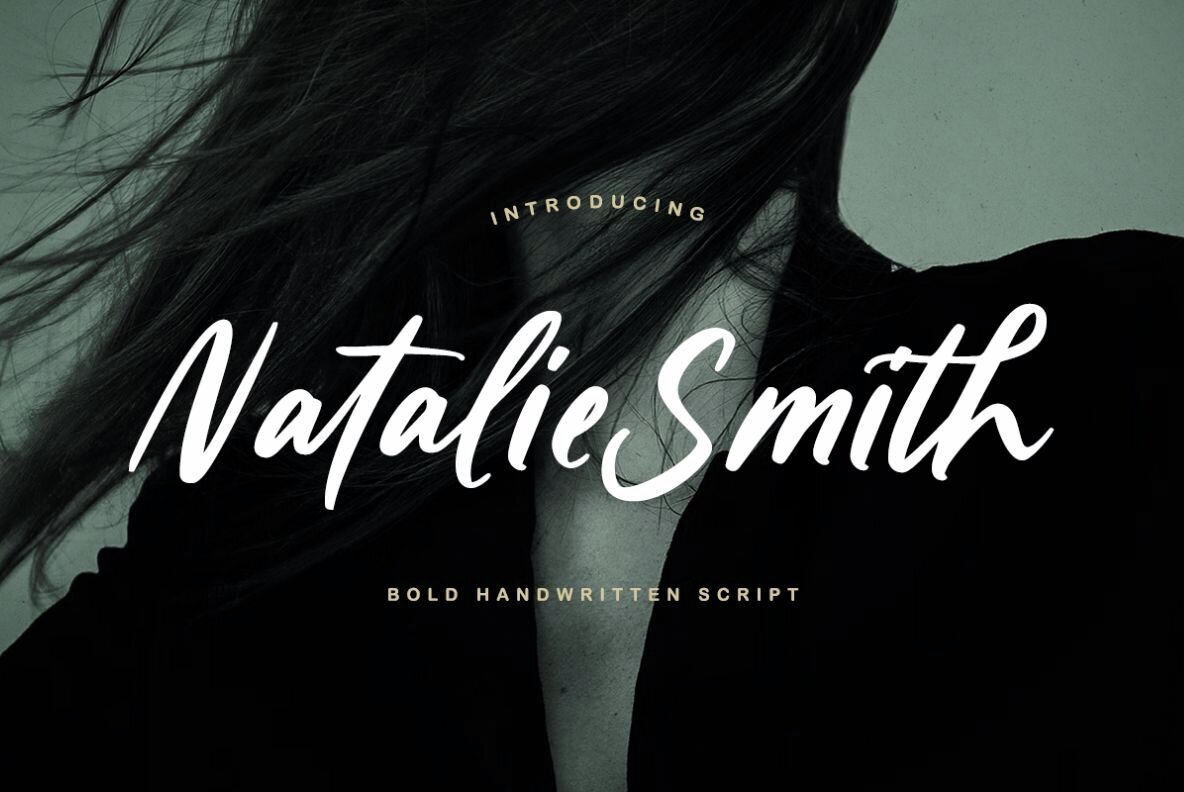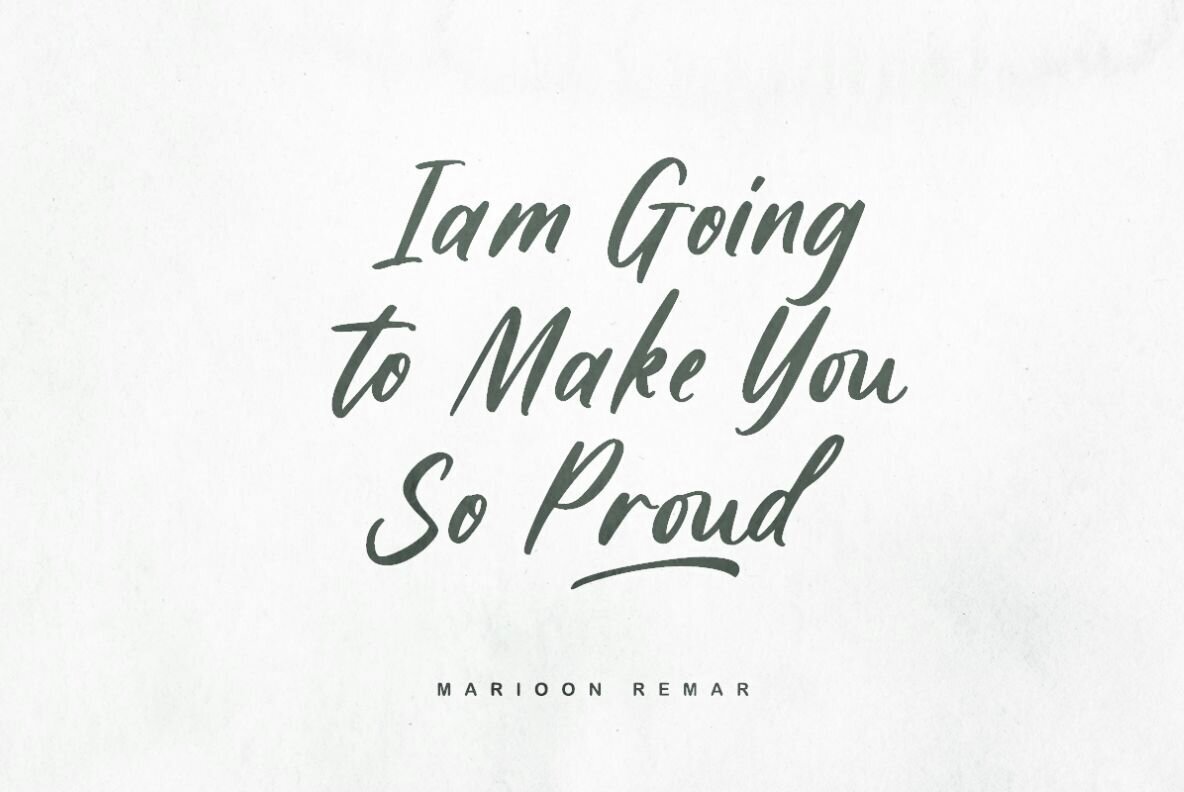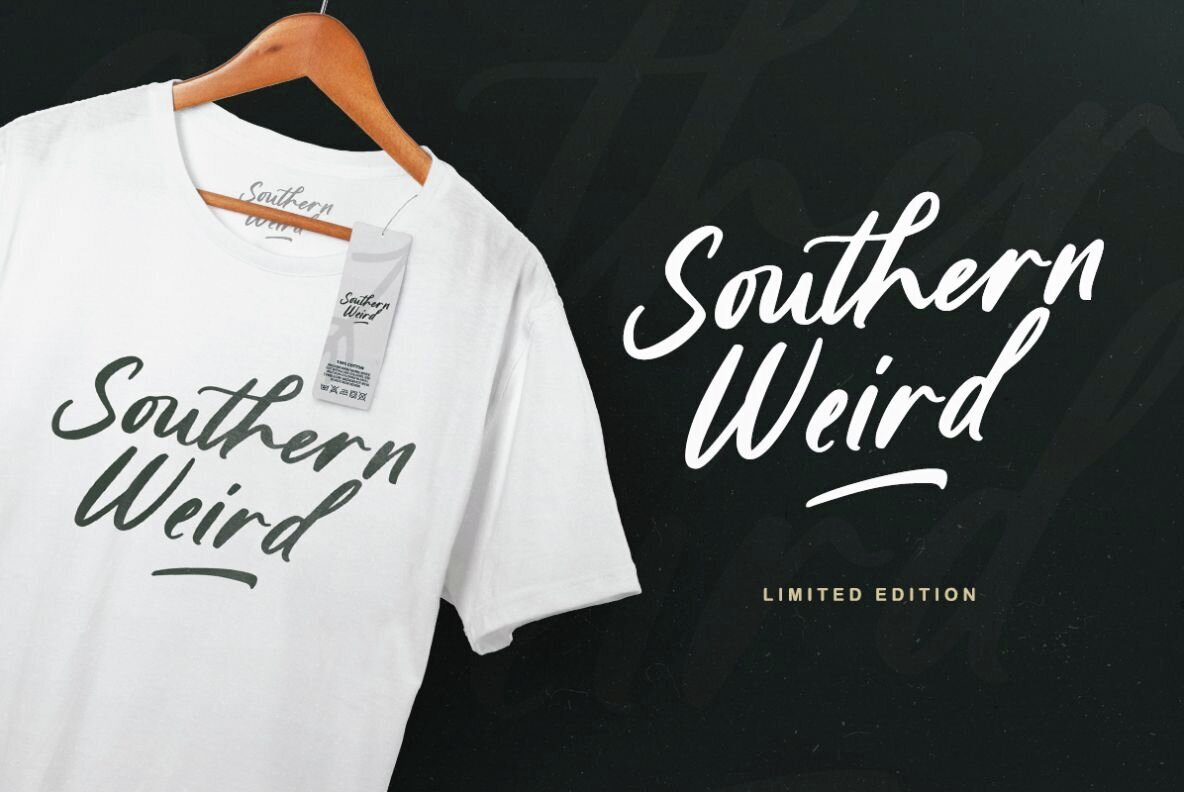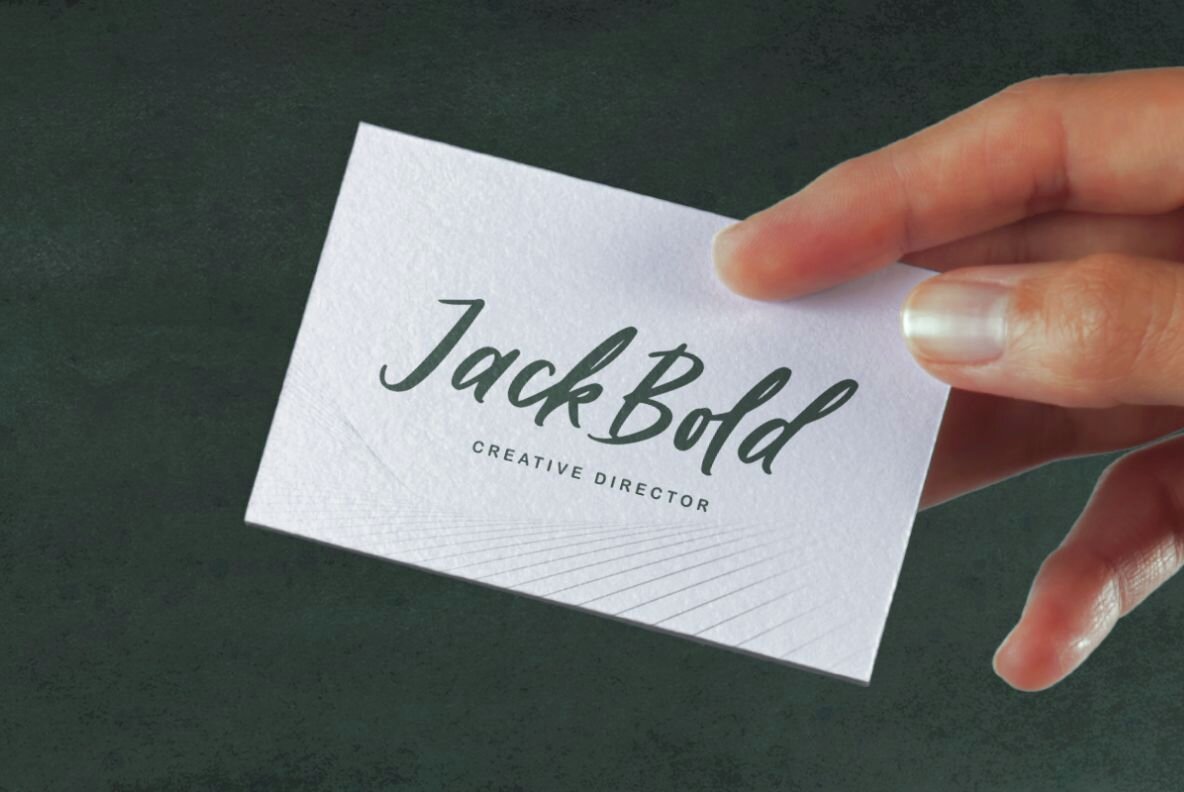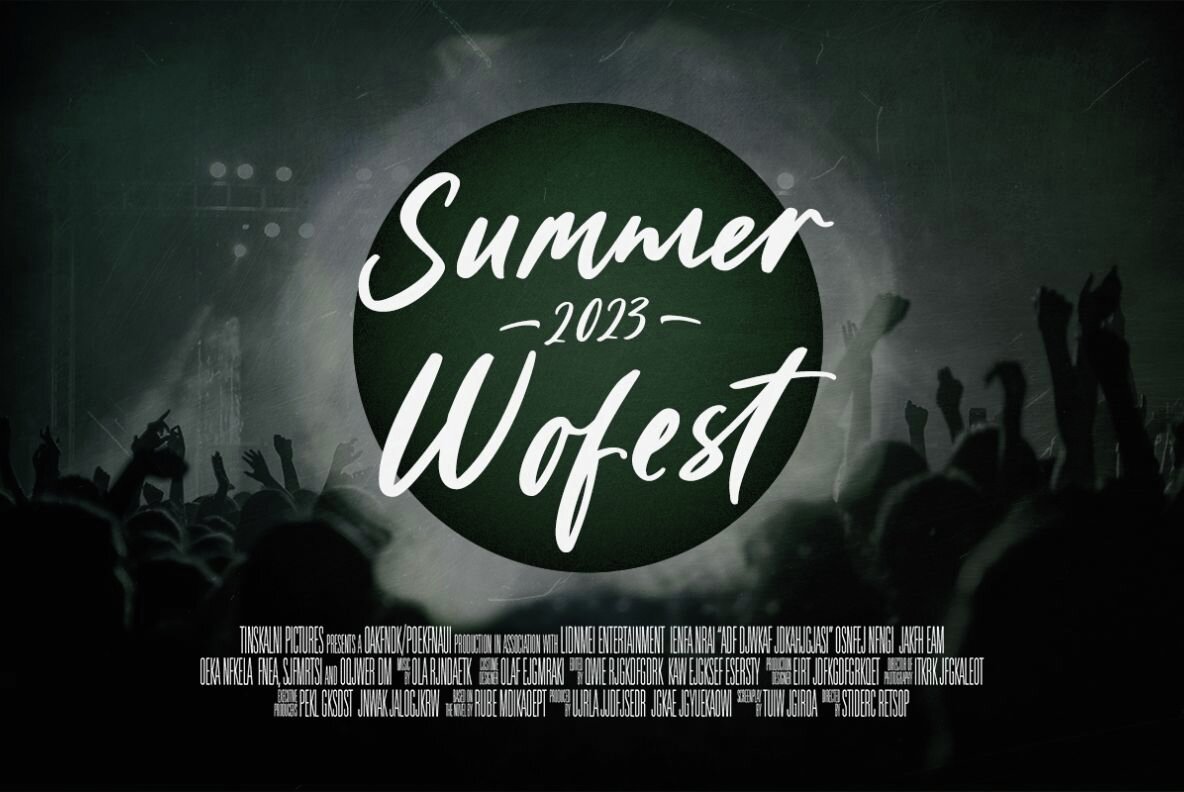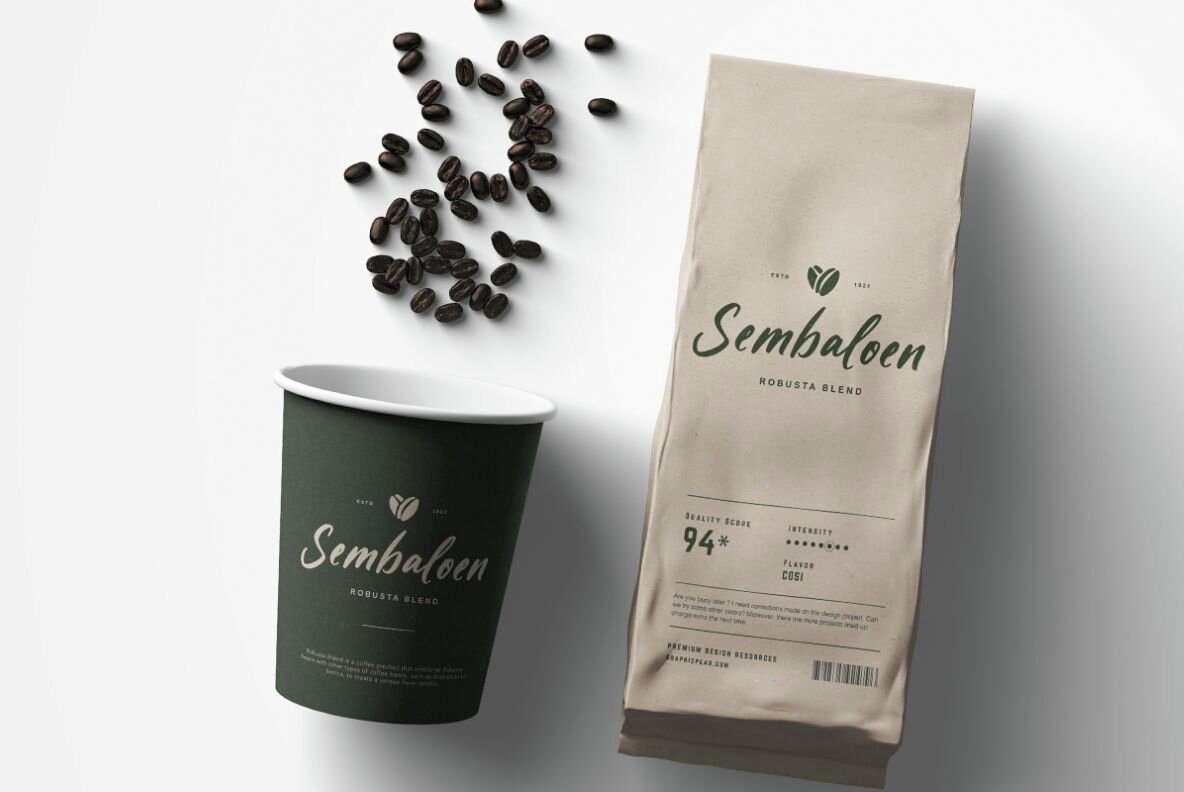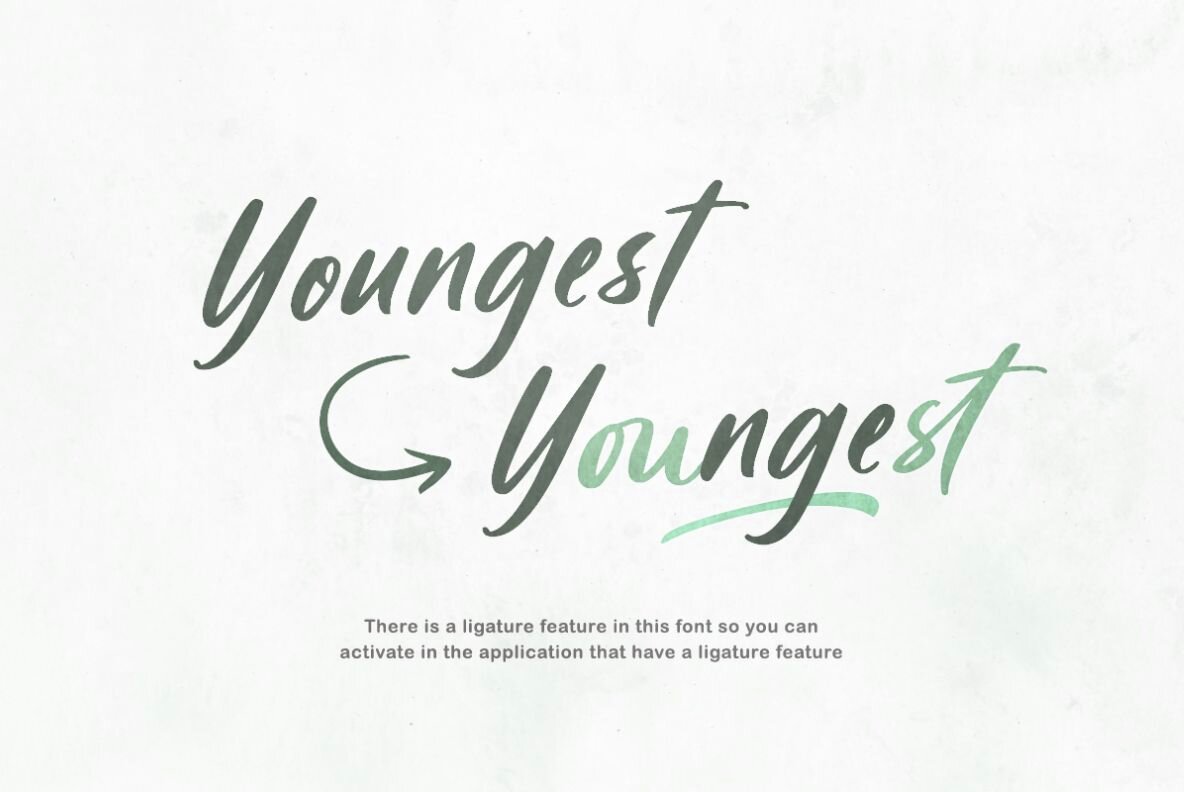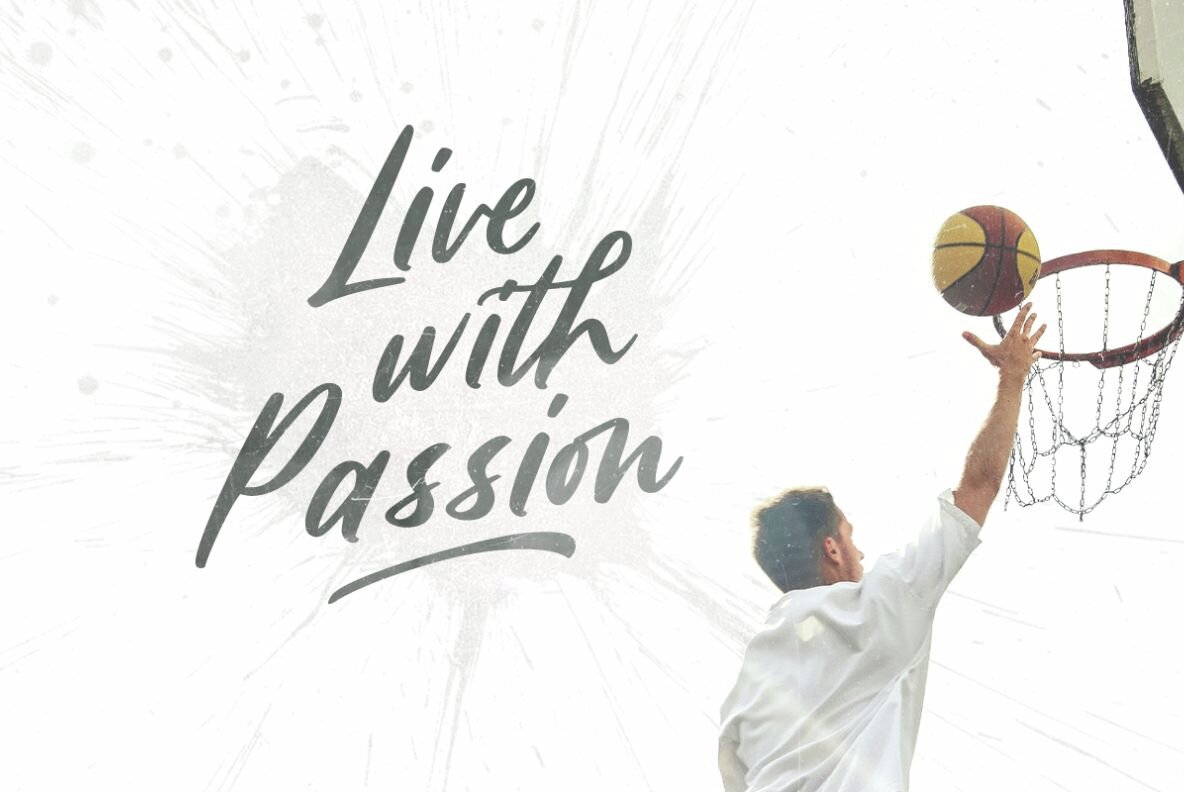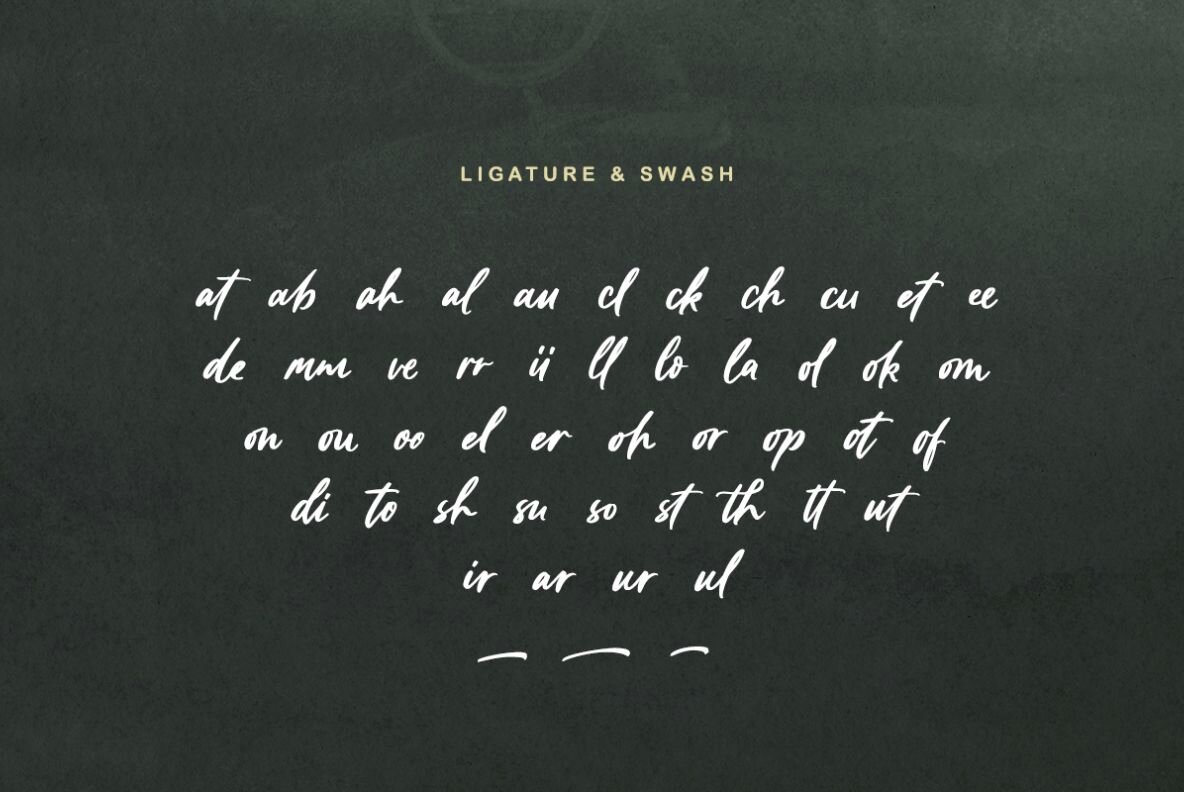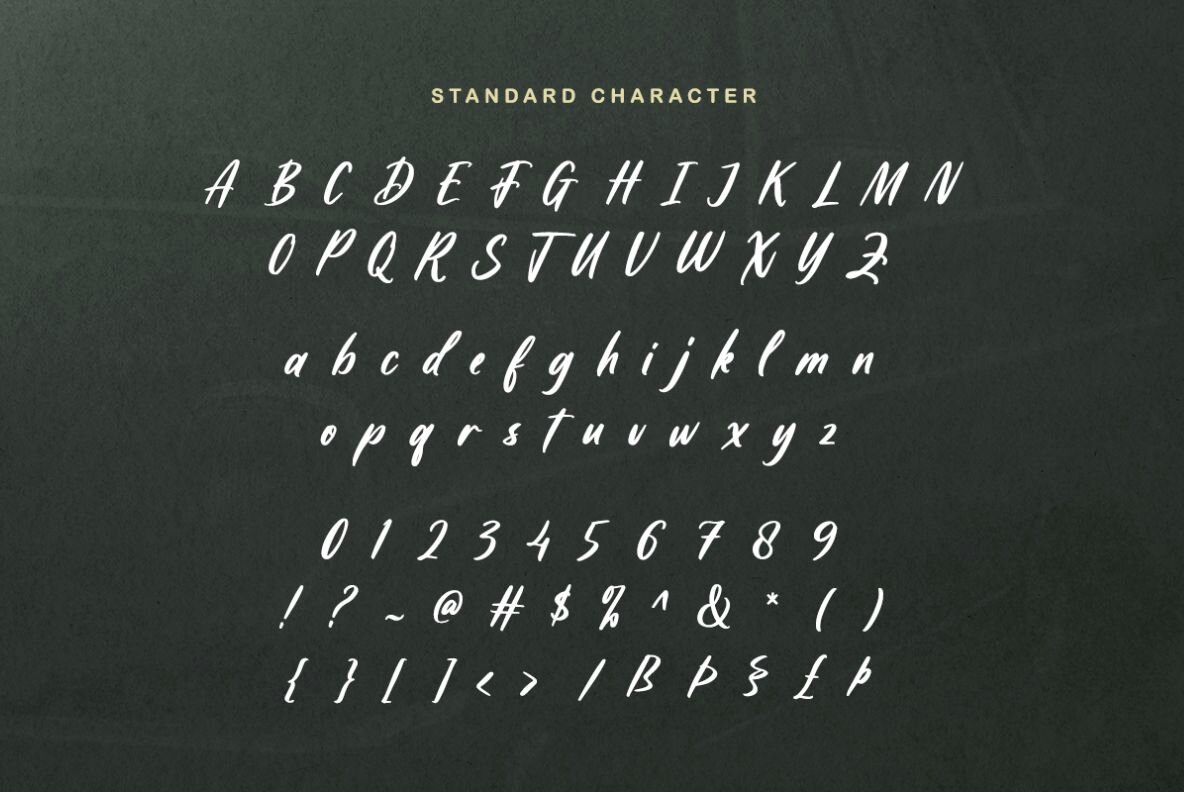
Natalie Smith Font
Natalie Smith Regular
Natalie Smith is a bold handwritten script that have many ligatures. With simple yet strong looks, you use this font for various projects, such as for advertisement, cover of book or magazine, logo, quotes, poster design, personal branding, promotional materials, logotype, product packaging, etc. Natalie Smith also support Multi Language!